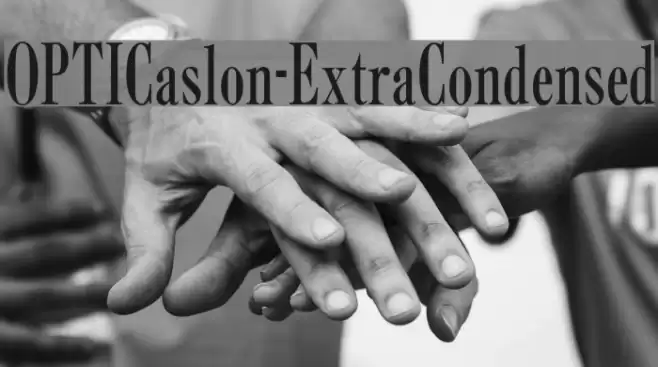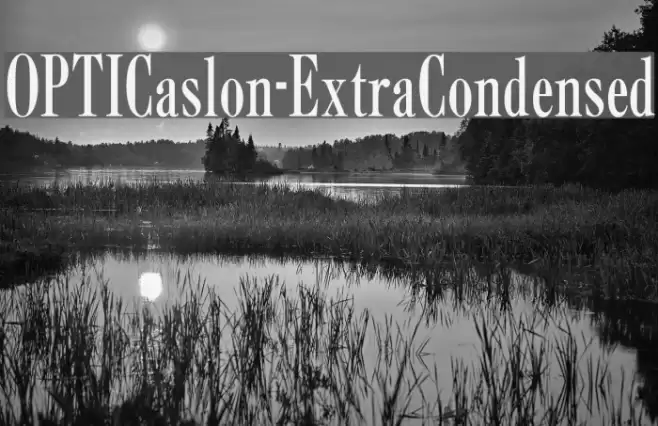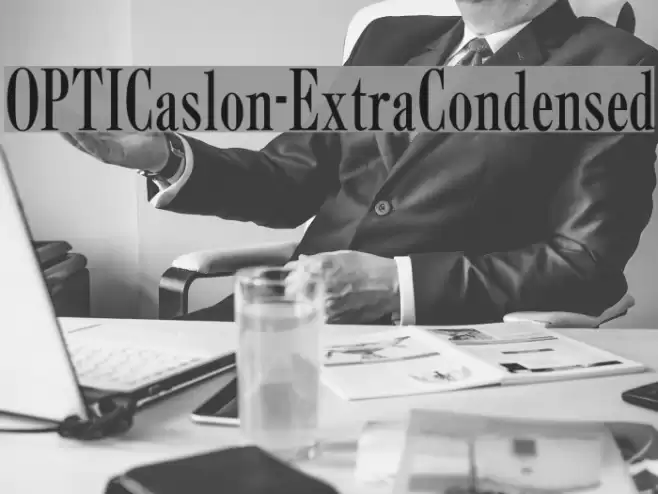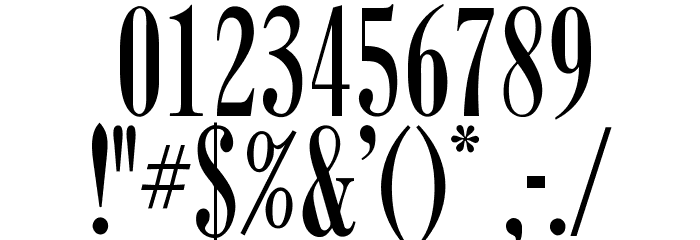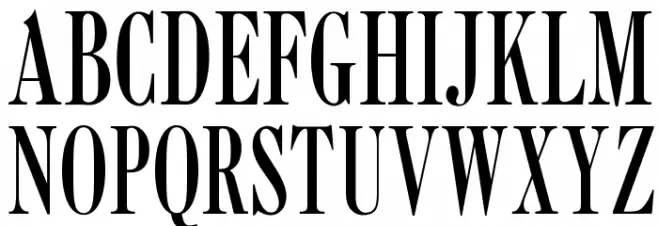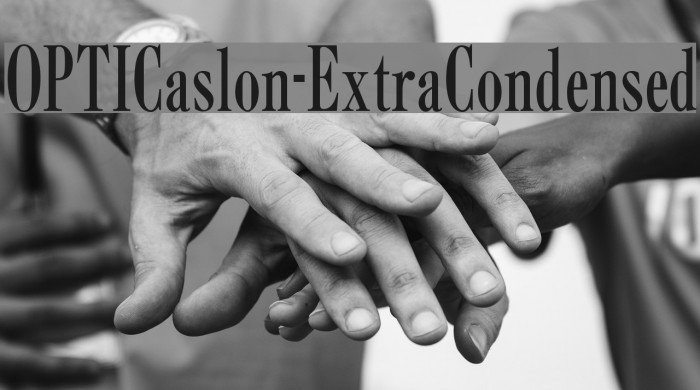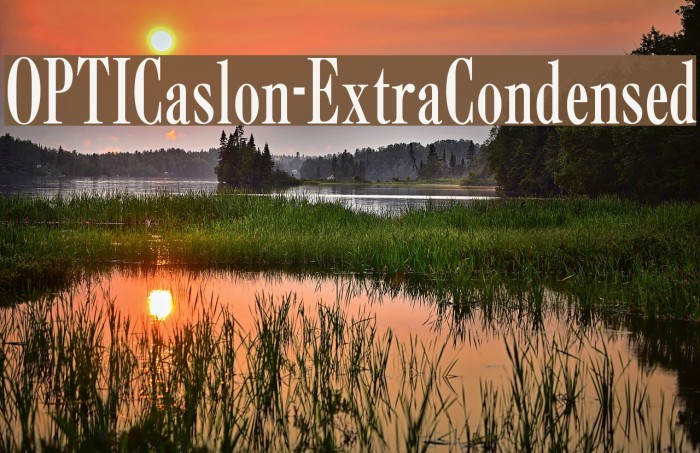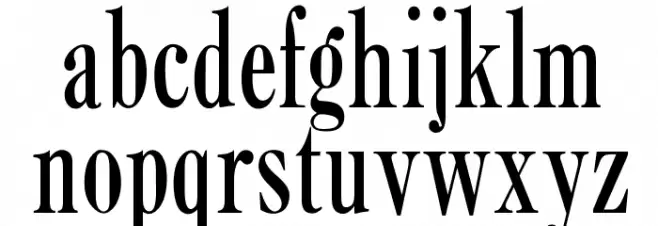
OPTICaslon-ExtraCondensed Font
OPTICaslon-ExtraCondensed Description
This typeface features a classic serif style with an extra condensed width, giving it a tall and narrow appearance. The strokes are moderately thick, providing a medium contrast that enhances readability while maintaining an elegant look. The serifs are pronounced and slightly curved, adding a touch of sophistication. The uppercase letters are bold and commanding, while the lowercase letters maintain a consistent height and style. The numerals are clear and distinct, matching the overall aesthetic. Special characters are well-defined, ensuring versatility in various design contexts.
A classic serif typeface with an extra condensed width and medium contrast from Uncategorized fonts.
- Proposed Projects: Ideal for editorial design, book covers, formal invitations, and branding projects that require a touch of elegance and sophistication.
- Character Spacing: Tight
- Overall Style: Classic
- Use Case: Headlines, Logos, Editorial design